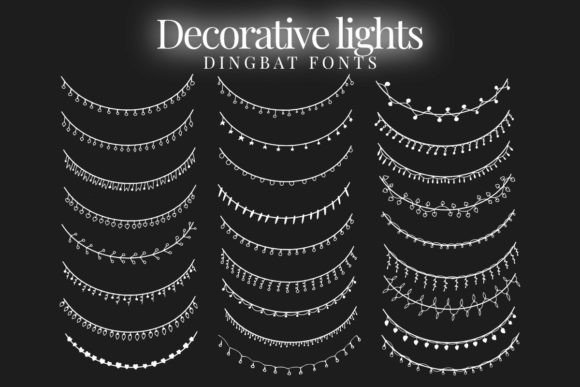
Elevate Your Space with Decorative-Lights Font: A Unique and Versatile Asset
When it comes to adding a touch of personality and style to your projects, the right visual elements can make all the difference. One often overlooked yet impactful aspect is the use of decorative lights. A set of beautifully designed decorative lights can transform any space, making it not only visually appealing but also uniquely yours. In this article, we’ll explore the world of decorative-lights font and how a set of beautifully designed decorative lights can become a great asset to your next projects.
The Power of Decorative Lights
Decorative lights are more than just a source of illumination; they are a form of expression, a way to add character and ambiance to any room or outdoor space. Whether you’re a designer looking for that perfect finishing touch for a client’s project or a DIY enthusiast aiming to personalize your home, decorative lights offer a versatile solution. They come in a myriad of styles, from modern and sleek to vintage and whimsical, ensuring there’s something to fit every aesthetic.
A beautifully designed decorative light fixture can become the centerpiece of any room.
Introducing the Decorative-Lights Font
Imagine pairing your decorative lights with a font that complements their style and ambiance. The decorative-lights font is a unique typography design inspired by the elegance and charm of decorative lighting. This font is not just a tool for communication; it’s an artistic statement that can elevate your branding, advertising, and even personal projects. With its intricate designs and stylish flair, the decorative-lights font can add a touch of sophistication and whimsy to your text.
A Set of Beautifully Designed Decorative Lights
A set of beautifully designed decorative lights is more than just an assortment of fixtures; it’s a collection of pieces that can transform your space into a reflection of your personality or brand. Such a set typically includes a variety of designs, each crafted to bring a unique ambiance to your environment. From pendant lights and chandeliers to string lights and lanterns, a comprehensive set offers endless possibilities for creativity.
Benefits of a Versatile Set of Decorative Lights:
- Versatility: A diverse set allows you to experiment with different styles and settings, ensuring you find the perfect fit for your project.
- Uniqueness: With a wide range of designs, you’re more likely to create a space that stands out and captures attention.
- Ease of Use: Having a variety of decorative lights at your disposal means you can easily adapt to changes in your design or project requirements.
- Cost-Effectiveness: Purchasing a set can often be more cost-effective than buying individual pieces, especially if you’re looking to outfit an entire space.
Applications of Decorative-Lights Font and Decorative Lights
The combination of the decorative-lights font and a set of beautifully designed decorative lights can be applied in numerous contexts, including:
- Interior Design: Use decorative lights to create focal points in rooms, and apply the decorative-lights font in signage or decorative elements to maintain a cohesive look.
- Outdoor Events: String lights and lanterns can create a magical atmosphere for weddings, festivals, or parties. The decorative-lights font can be used in banners and invitations to set the tone.
- Branding and Marketing: For businesses in the design, hospitality, or entertainment industries, the decorative-lights font and decorative lights can serve as powerful branding elements, conveying a sense of style and creativity.
| Font Name | Decorative-lights Font |
Incorporating a set of beautifully designed decorative lights into your projects, paired with the unique flair of the decorative-lights font, can elevate your space from ordinary to extraordinary. Whether you’re a professional designer or a creative DIY enthusiast, the possibilities are endless. With their versatility, uniqueness, and wide range of applications, decorative lights and the decorative-lights font are assets that can bring your vision to life.